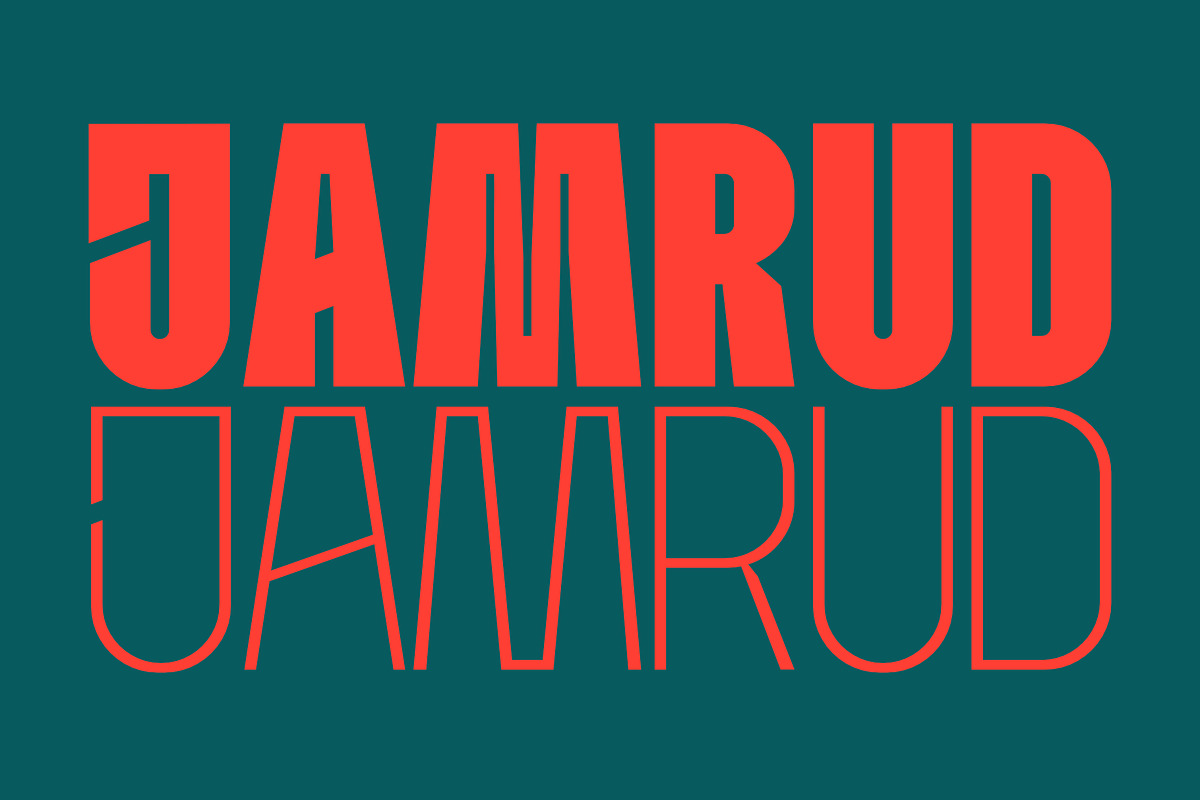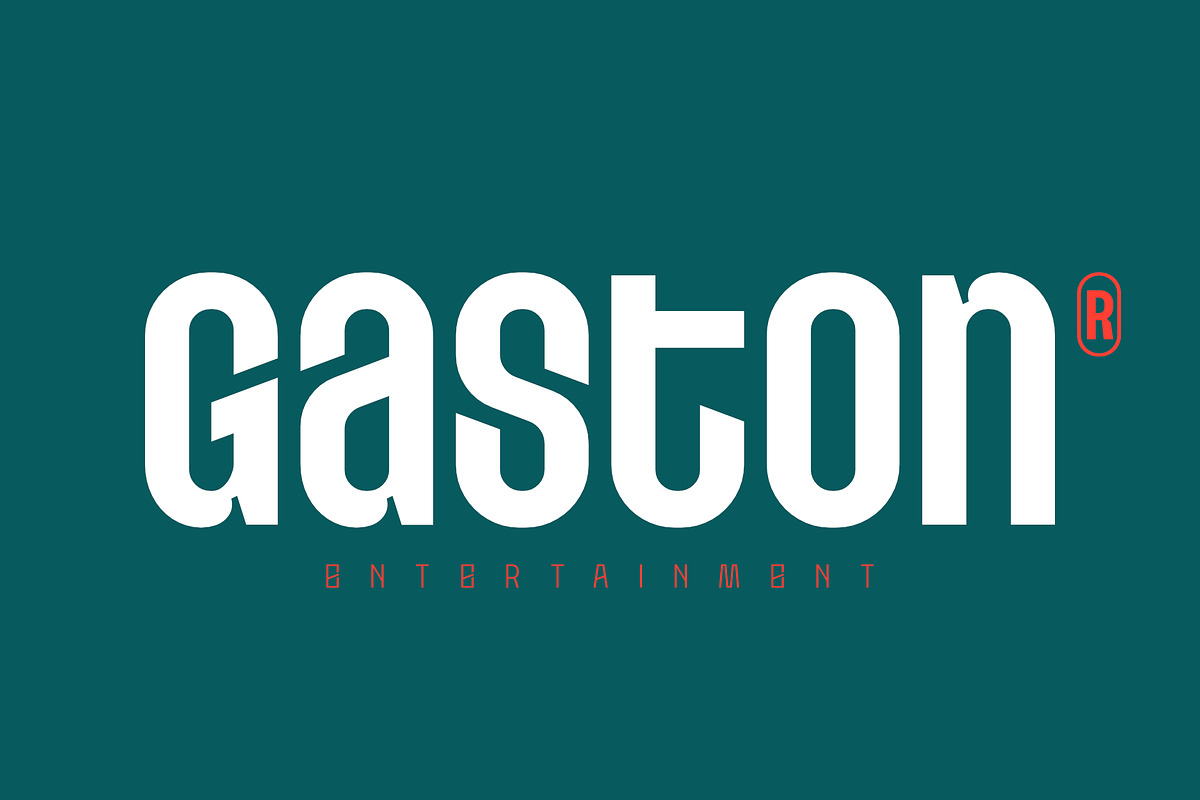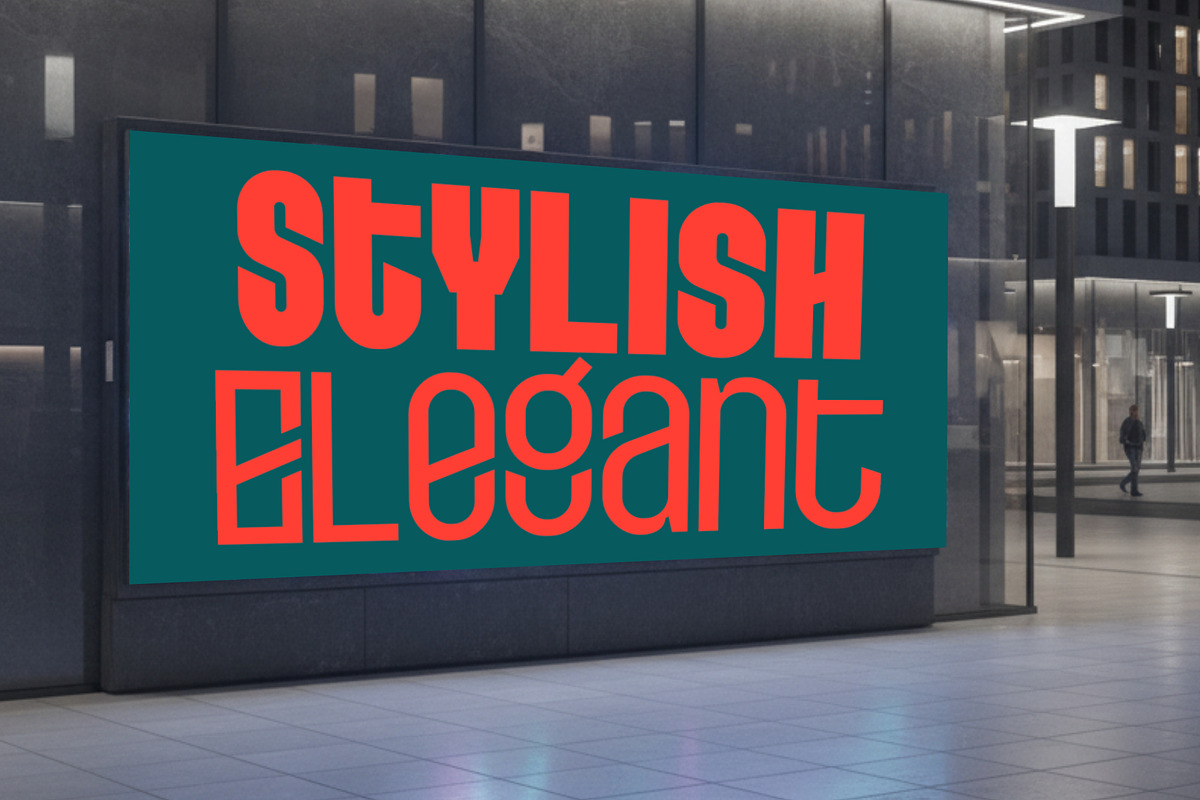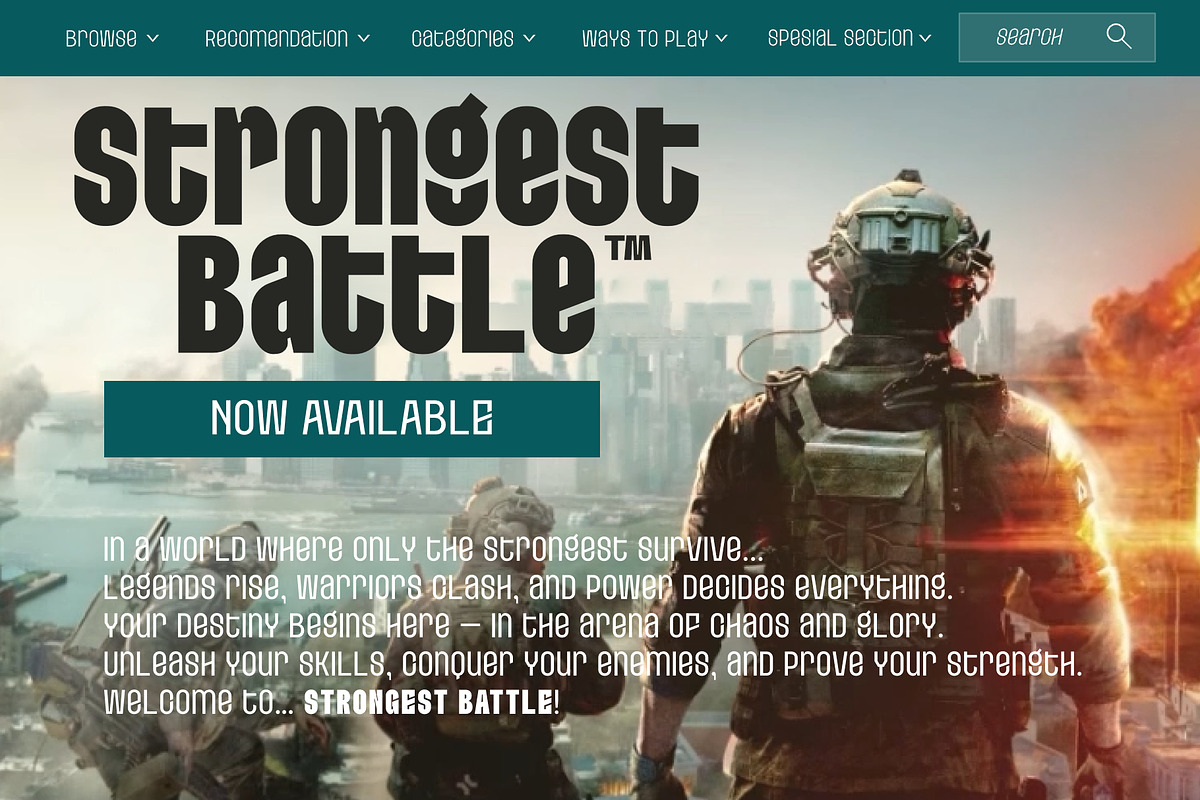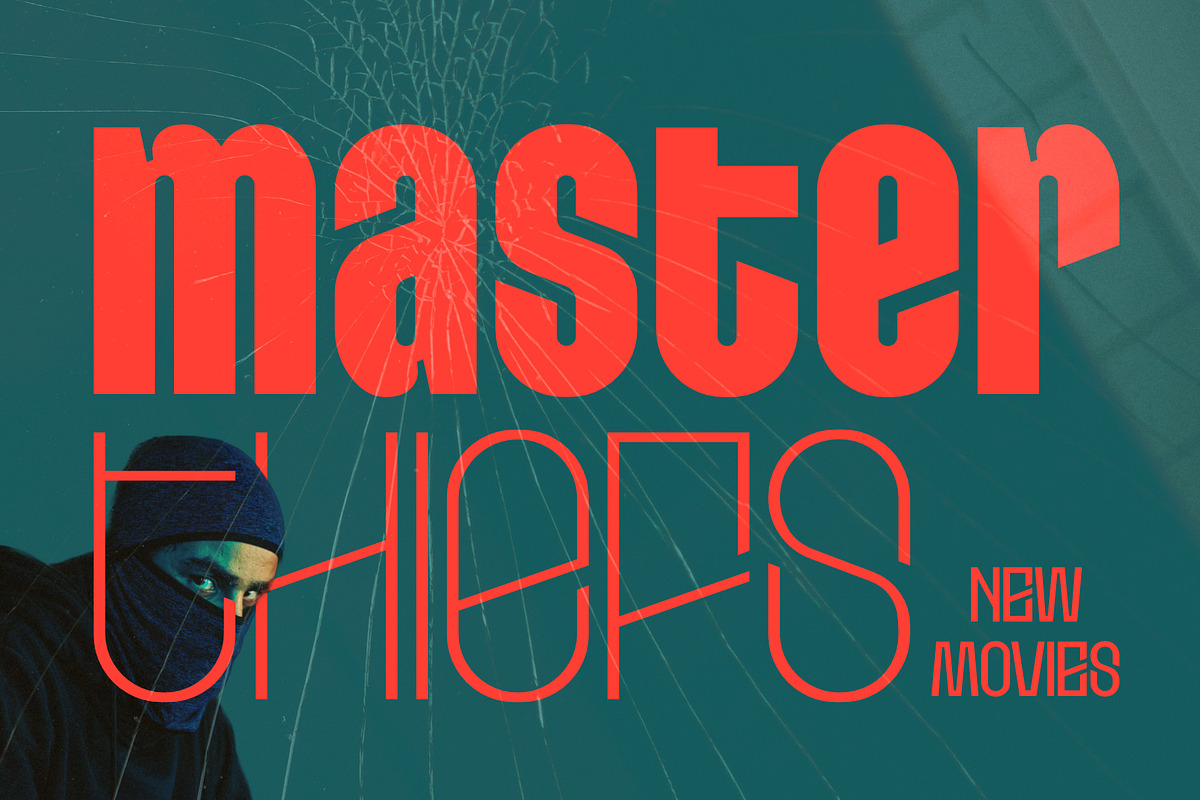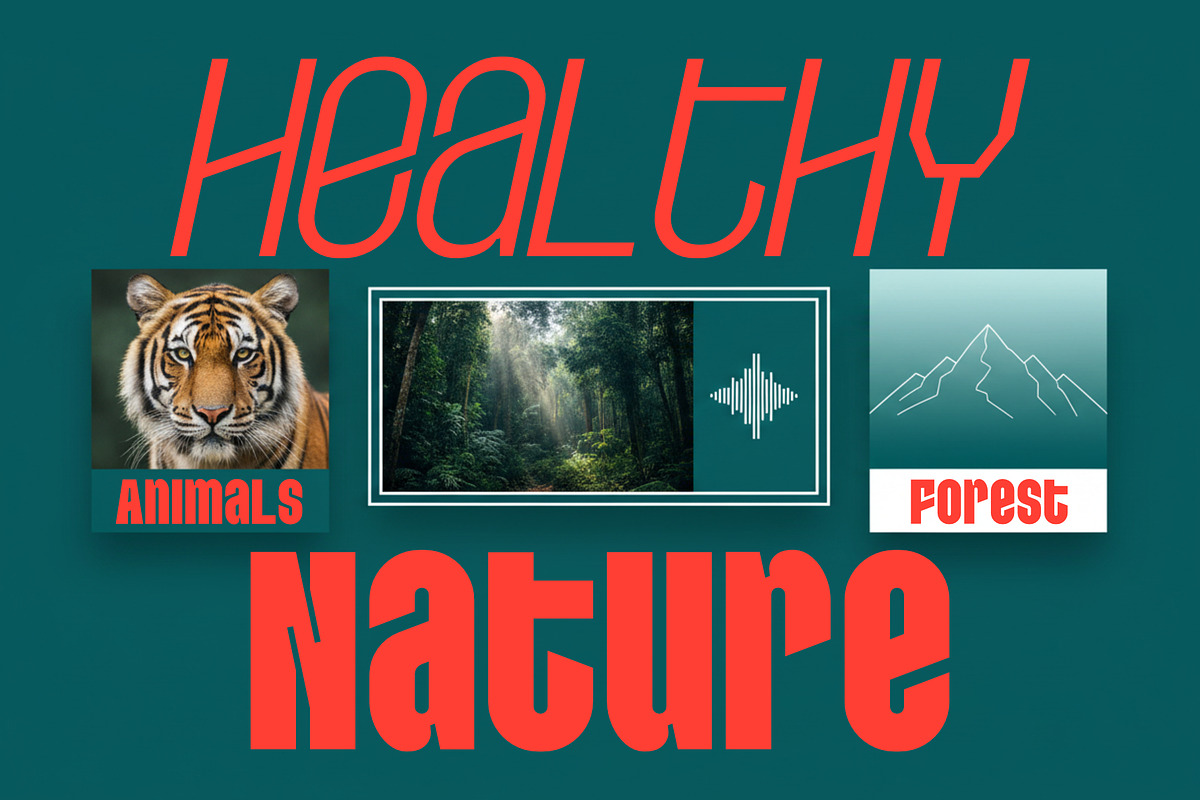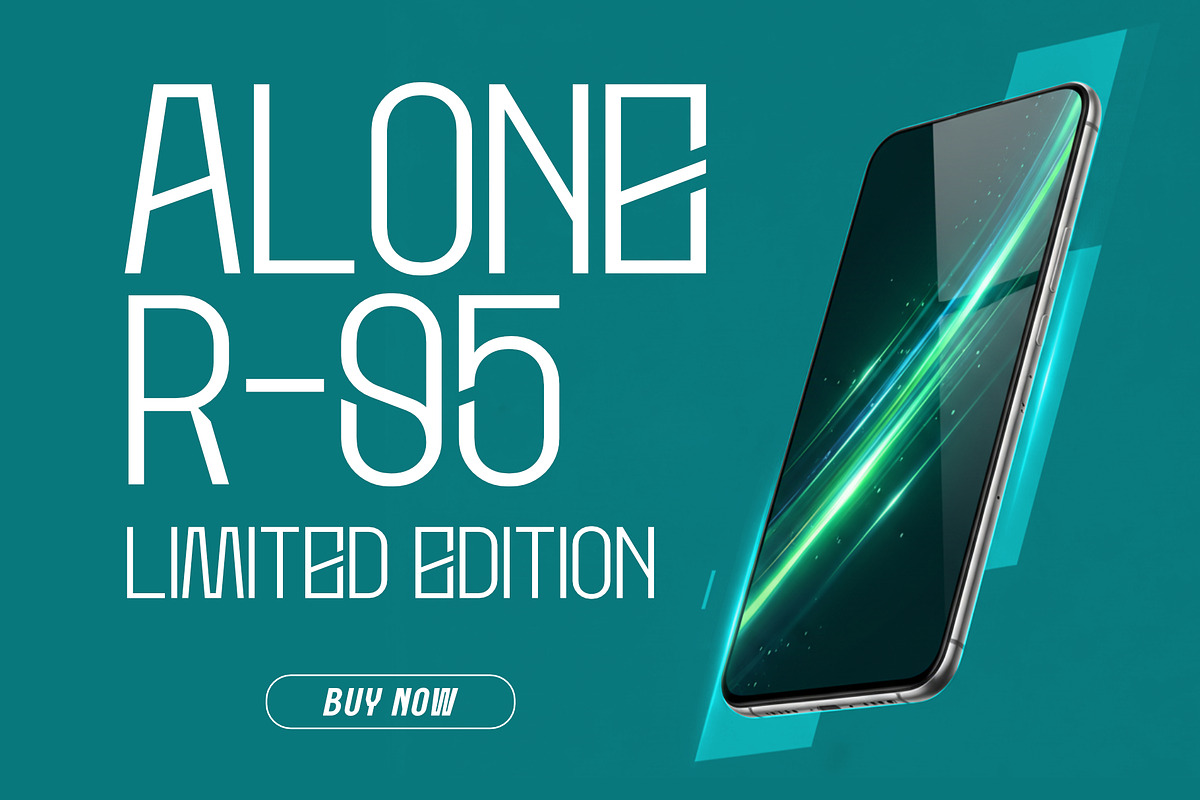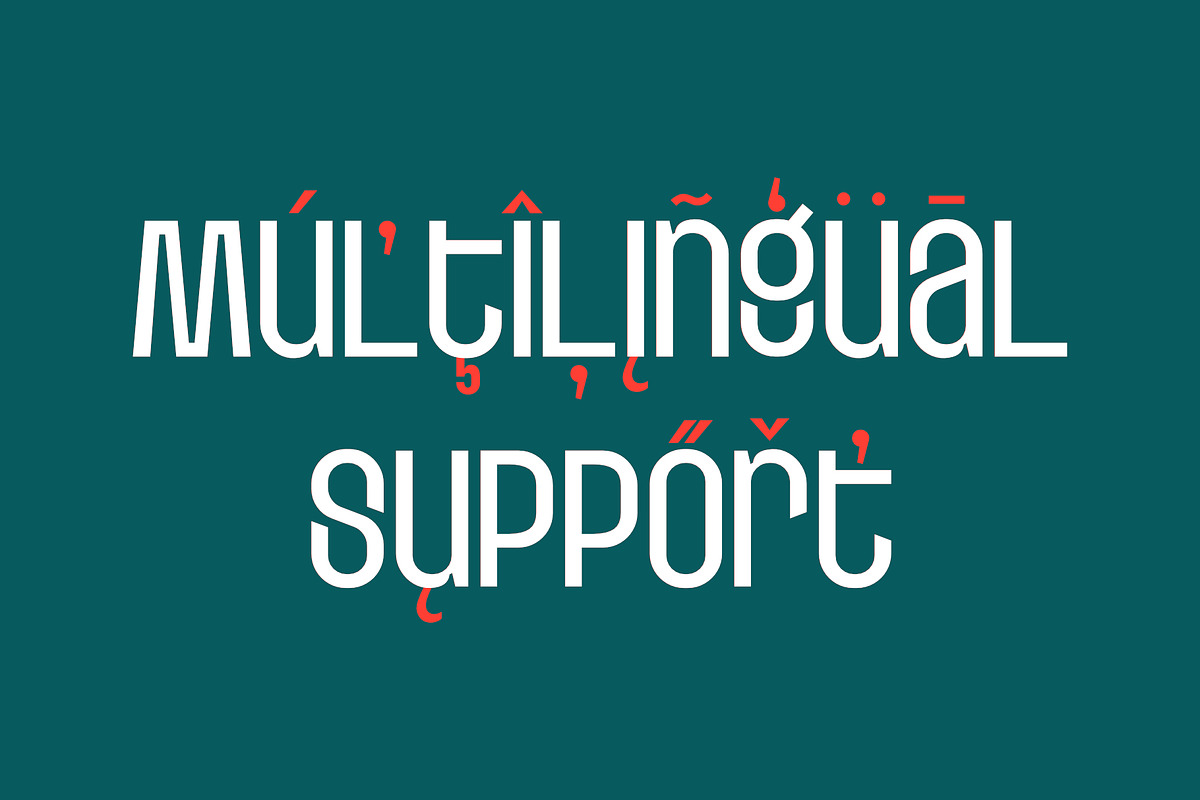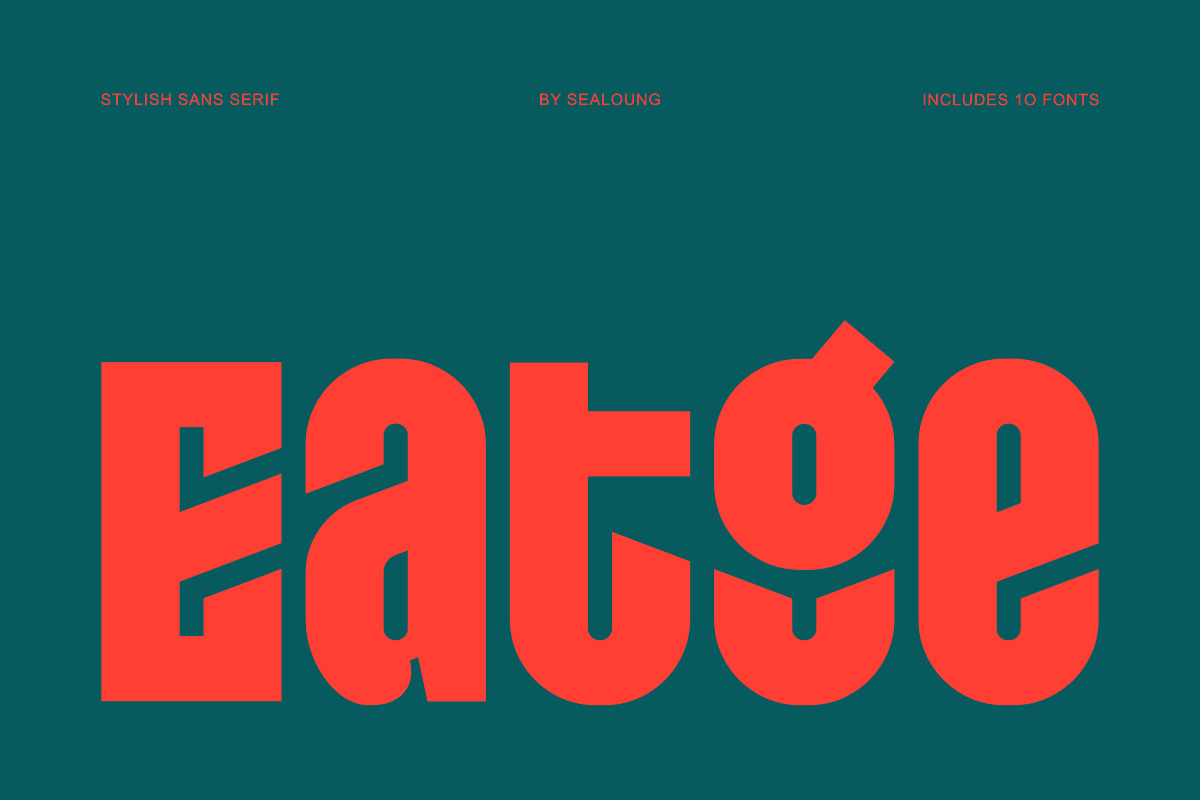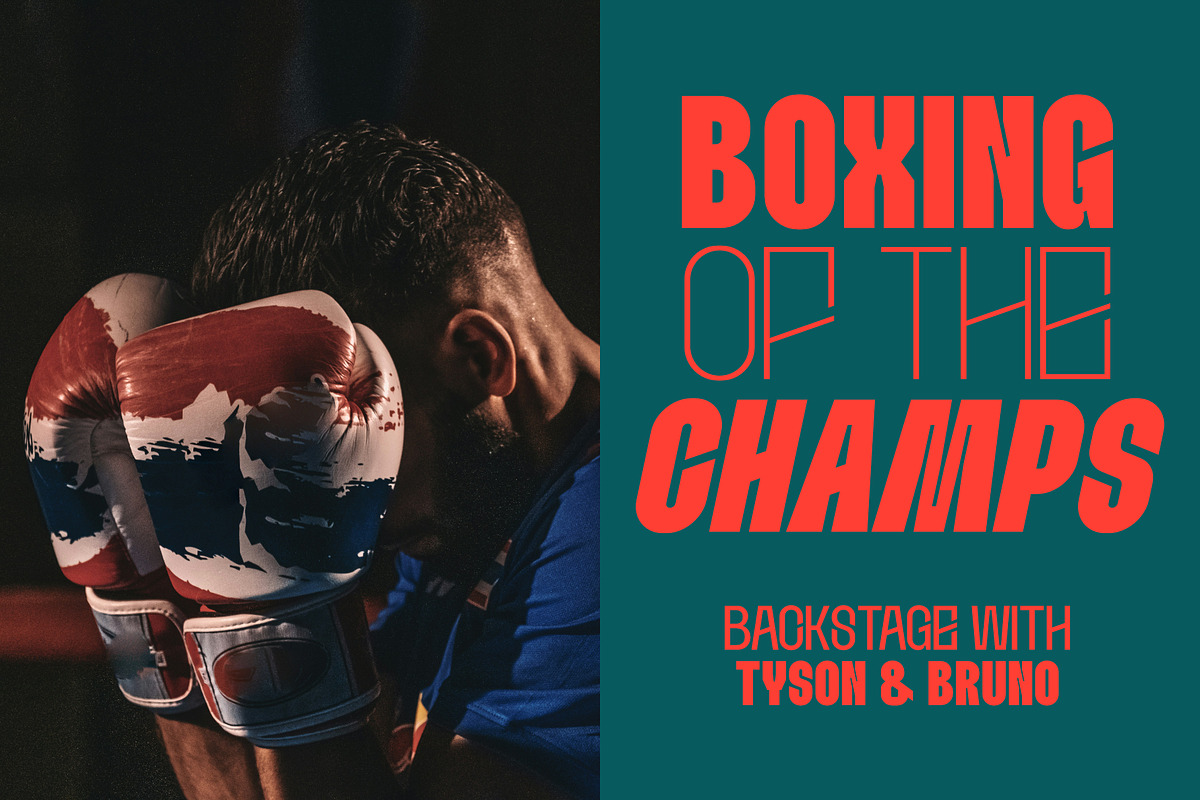
Eatge - Stylish Sans Serif Family
Eatge Stylish Sans Serif Family – From Thin to Bold & Italic
Eatge is a stylish sans serif typeface family with a refined, clean, and versatile aesthetic. It features weights ranging from Thin to Bold, along with matching Italic styles, offering complete flexibility for any creative or professional project.
Designed with a perfect balance of sleek lines and minimalist forms, Eatge works beautifully across a wide range of design uses, including:
Branding and Logo Design
Headlines and Editorial Layouts
Posters and Banners
Websites and Mobile Interfaces
Presentations and Print Media
10 Styles (Thin to Bold + Italic)
Full multilingual support (Western, Central, and Eastern European languages)
Includes uppercase, lowercase, numerals, and punctuation
With its extensive range of weights and italics, Eatge makes it effortless to create strong, stylish, and visually appealing typography for any project.